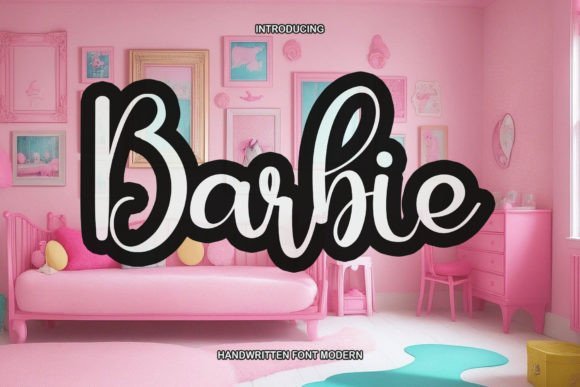
Discover the Timeless Charm of Barbie Font
Have you ever sat down with a blank page and a blank mind, waiting for the perfect idea to strike? For designers, those moments of creative spark can be the most thrilling – and sometimes the most elusive. But what if the right font could be the key to unlocking your next big project? Enter Barbie Font, a stunning handwritten font that exudes elegance and sophistication.
Barbie Font is more than just a pretty face – it’s a versatile tool that can elevate any design project from ordinary to extraordinary. With its timeless classic calligraphy style, this font is perfect for adding a touch of refinement to everything from branding materials to wedding invitations. Whether you’re a seasoned pro or just starting out, Barbie Font is a valuable addition to your design arsenal.
Barbie Font Key Features
- Unique Characteristics: The Barbie Font features a distinctive, cursive script with a playful and feminine touch, making it ideal for branding and design projects that require a touch of elegance and whimsy.
Barbie Font Review
The Barbie font is a playful and fun font that screams girl power and individuality. It’s perfect for anyone who wants to add a touch of whimsy and charm to their designs. ✨ I particularly love how the font is highly customizable, allowing users to change the color and style of the font to suit their needs. ✨ The bold and rounded design of the font makes it perfect for headings and titles, while the cursive script makes it ideal for quotes and passages.
- Bold and rounded design for headings
- Cursive script for quotes and passages
- Perfect for girl power and individuality themes
- May not be suitable for formal or professional designs
- Can be overwhelming if used excessively
- Some users may find the font too childish or immature
In terms of overall impression, I think the Barbie font is a great choice for designers who want to add a touch of fun and personality to their designs. However, it may not be the best choice for more formal or professional projects. With its high level of customization and playful design, I think the Barbie font is a great addition to any designer’s toolkit. ⚠️ Just be sure to use it sparingly to avoid overwhelming your audience.
The Barbie Font is perfect for:
- Feminine product packaging and branding
- Playful and whimsical social media graphics